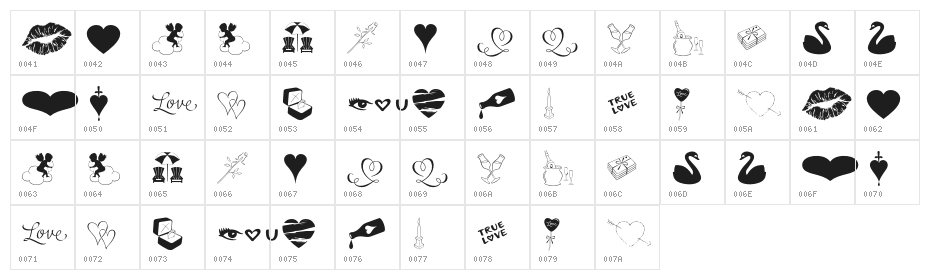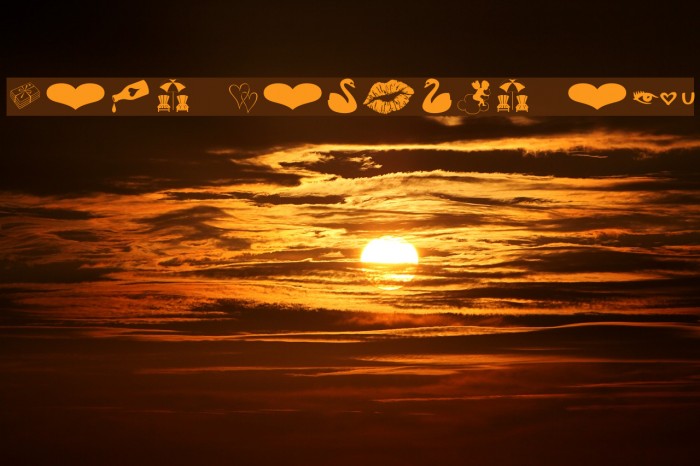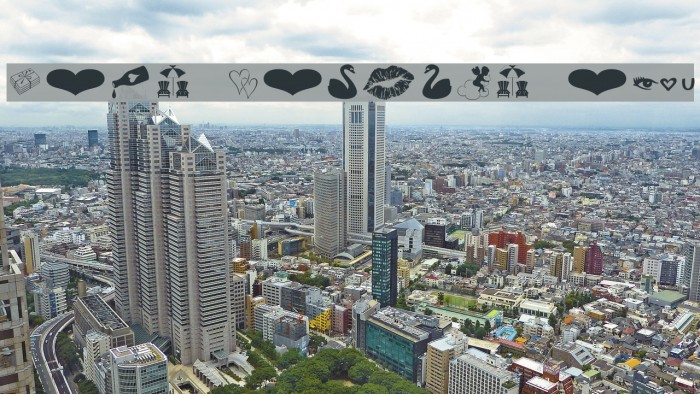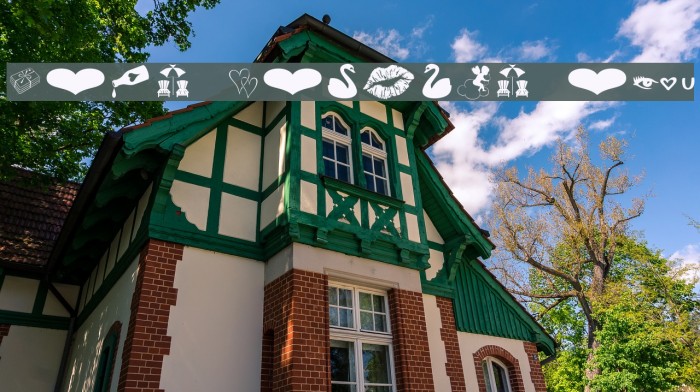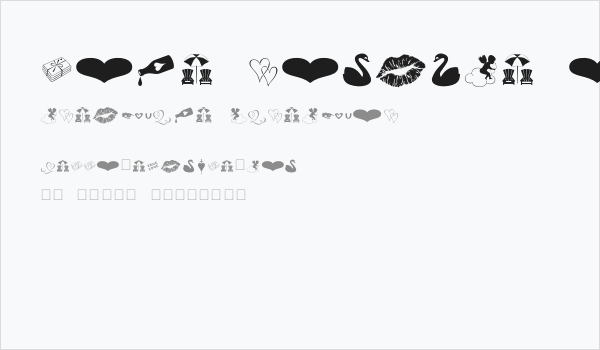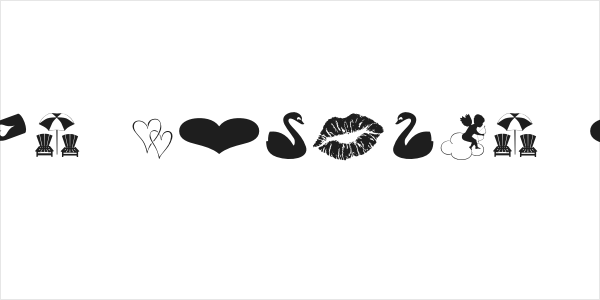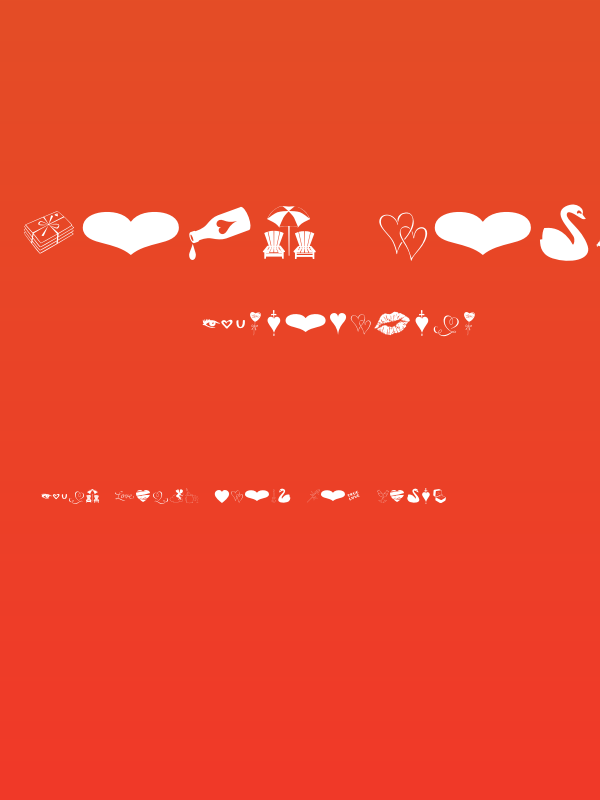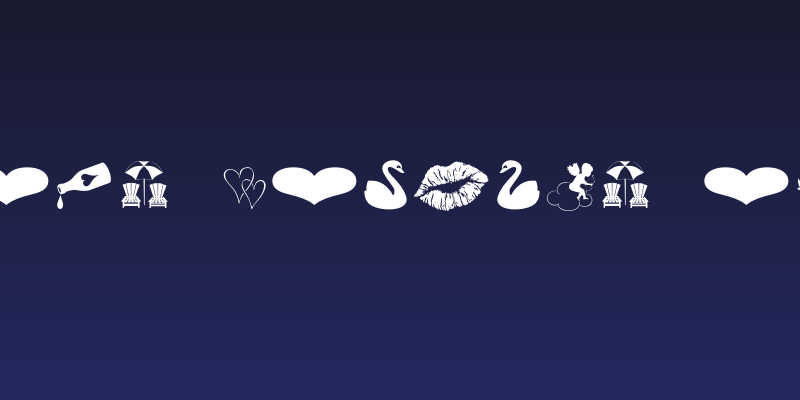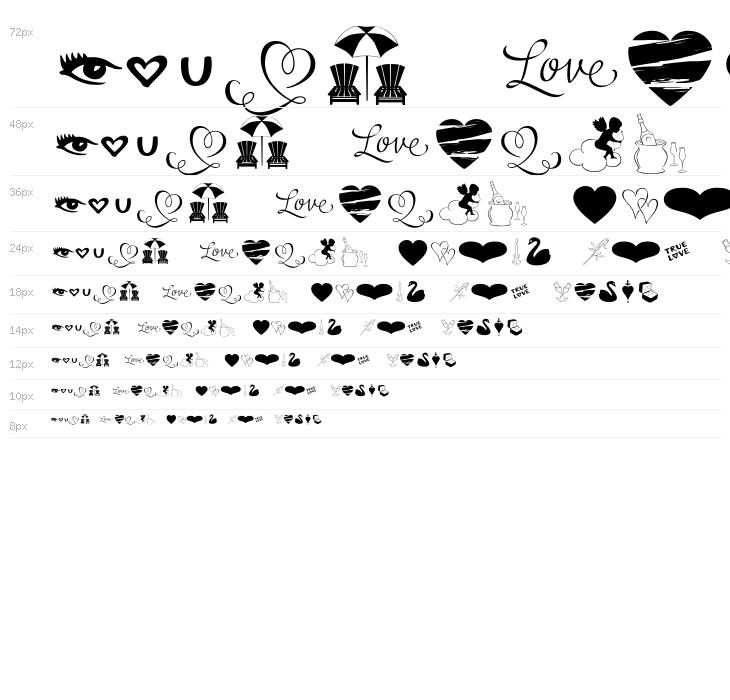
Love Romance OT Font
Love Romance OT Description
This decorative font is a collection of romantic-themed symbols and icons, perfect for adding a touch of love to any project. The characters include a variety of love-related imagery such as hearts, cupids, swans, and romantic gestures like kisses and gifts. Each symbol is intricately designed to convey emotions associated with love and romance. The style is playful and whimsical, making it ideal for projects that require a lighthearted and affectionate touch. The icons are bold and clear, ensuring they stand out in any design.
| Proposed Projects | Ideal for wedding invitations, Valentine's Day cards, romantic event promotions, and love-themed crafts. |